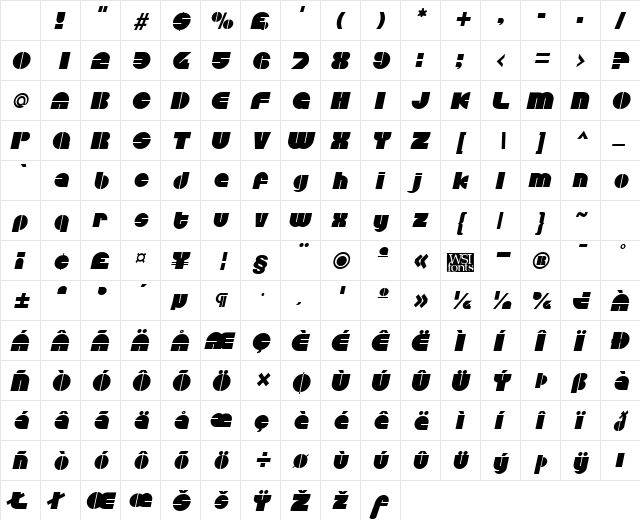
Discotheque is a composed and adaptable typeface that performs quietly and consistently across a wide range of design contexts. The slanted form adds forward momentum and visual energy.